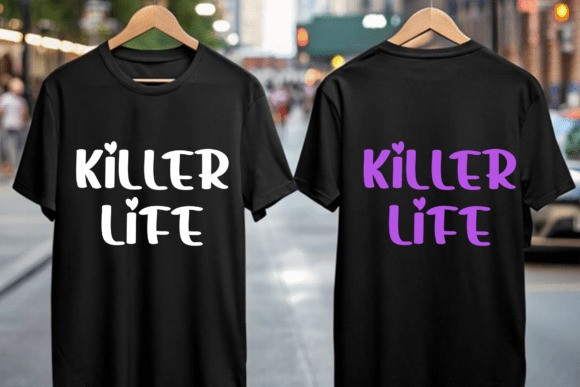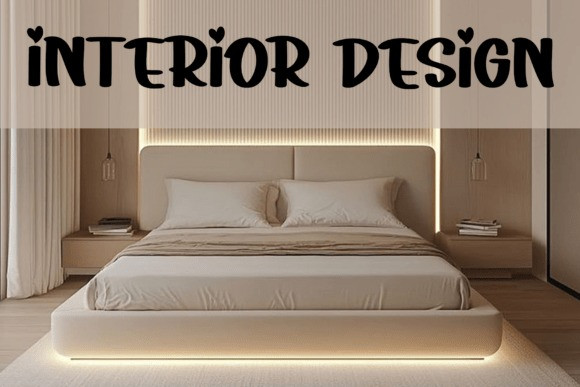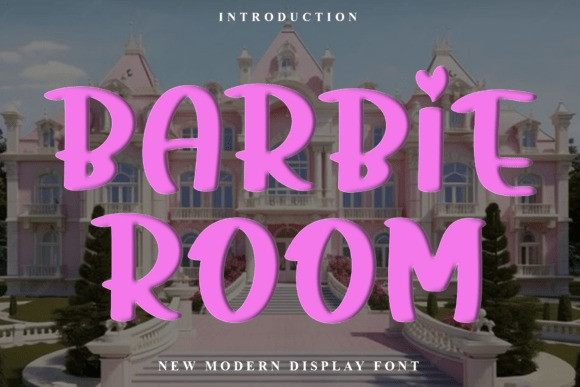
Barbie Room Font
Barbie Room Font  is a lovely and timeless handwritten font. It is the best choice for creating eye catching logos, branding and quotes. Every letter has a unique and beautiful touch, which will make your design come alive!